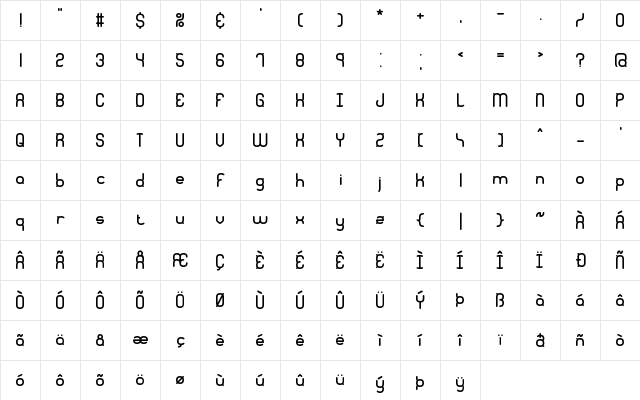
Quadratic BRK Normal Free Font
Quadratic BRK Normal
Design Context for Quadratic BRK
Quadratic BRK is a composed and adaptable typeface that performs quietly and consistently across a wide range of design contexts.
Pro Tip: Use Quadratic BRK in both headline and body roles to test its range before committing to a single application.